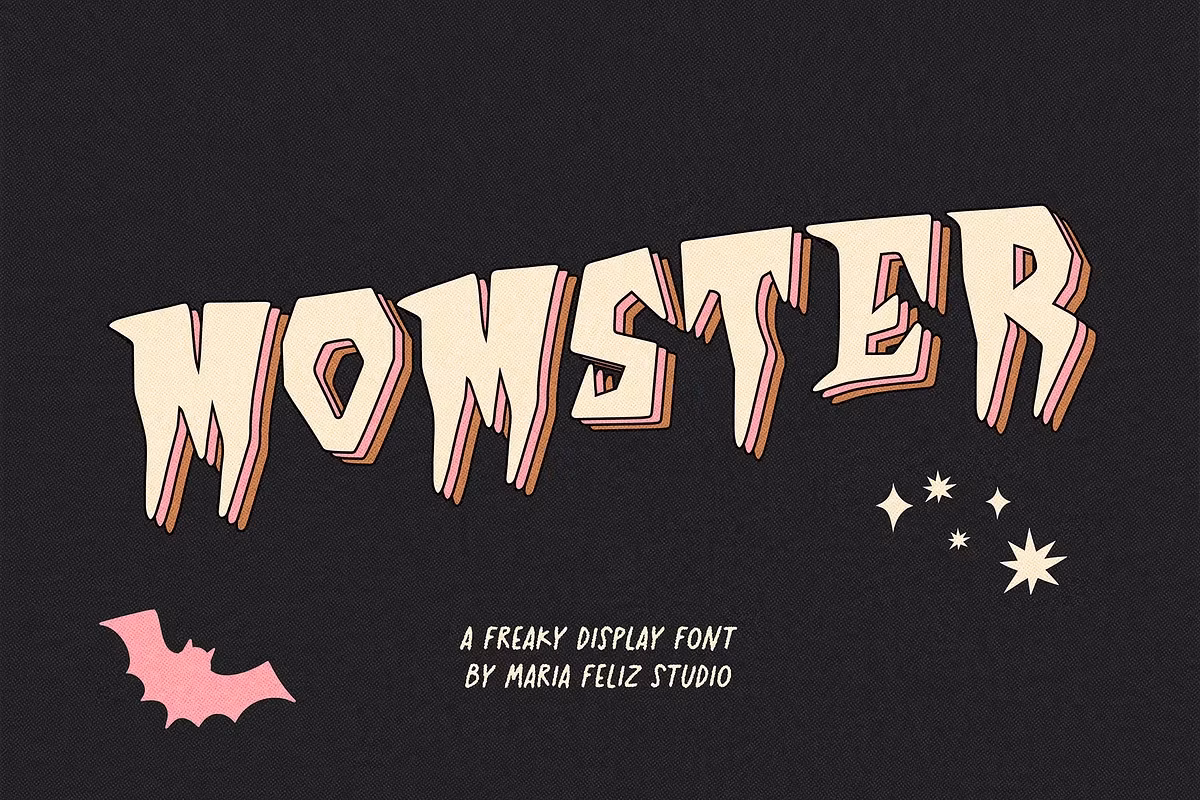
MOMSTER | FREAKY AND SPOOKY FONT Free Download
MOMSTER | Freaky and Spooky Font Free Download is a fun and fright-filled typeface that brings playful horror vibes to your Halloween and monster-themed designs. With quirky letterforms, jagged edges, and a slightly chaotic feel, this font is perfect for spooky party invites, haunted house flyers, creepy merch, and themed social media graphics.
MOMSTER | Freaky and Spooky Font Free Download captures the spirit of all things weird and wild—striking the perfect balance between fun and freaky. Whether you're designing for kids or adults, it adds personality and a touch of mischief to any project.